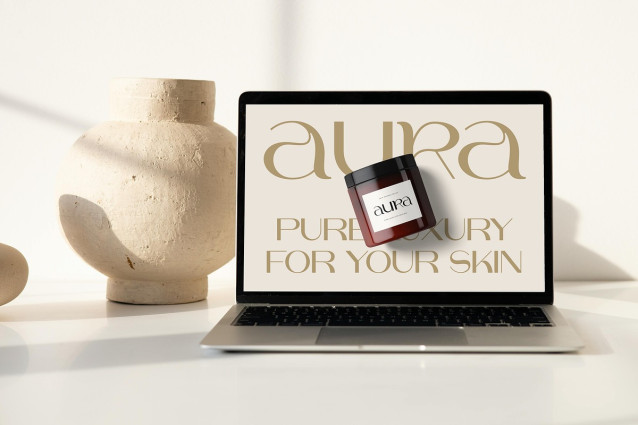
Gracie Aquos Font
Gracie Aquos Font – This font would be particularly well-suited for high-end branding, fashion labels, wedding designs, social media posts, advertisements, product packaging, product designs, wordmarks, magazines, designs, books, publications, branding, brand names, business cards, photography, editorial design where a touch of class and understatement is desired.